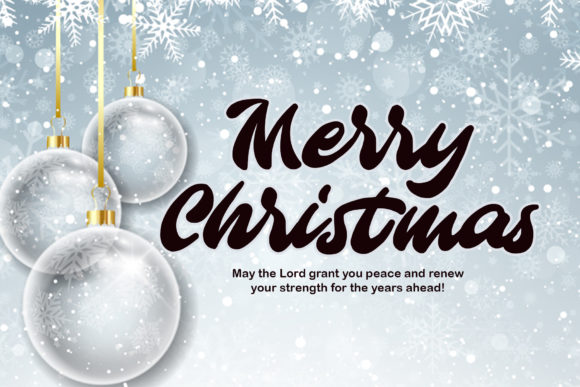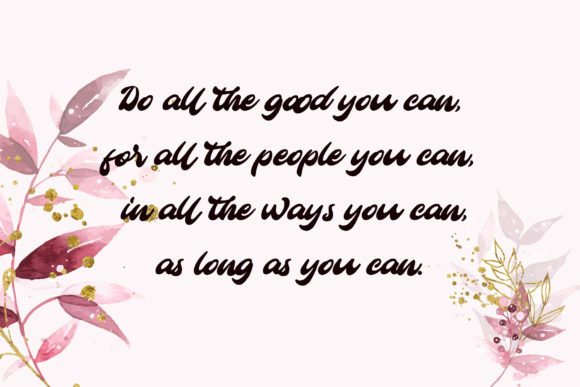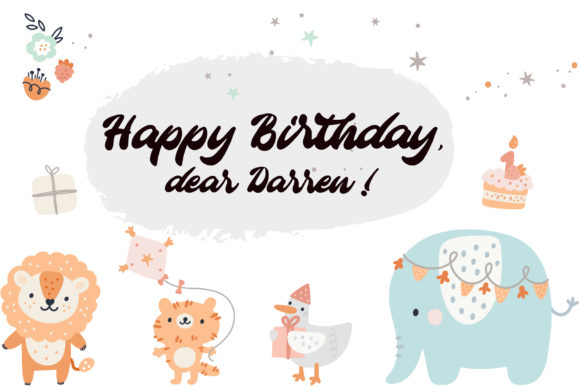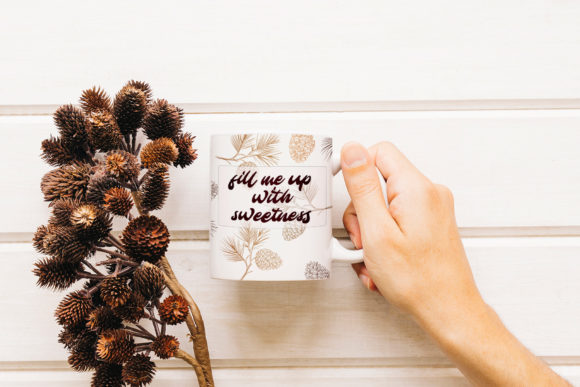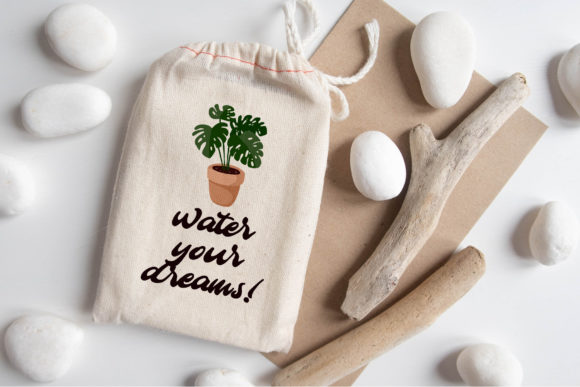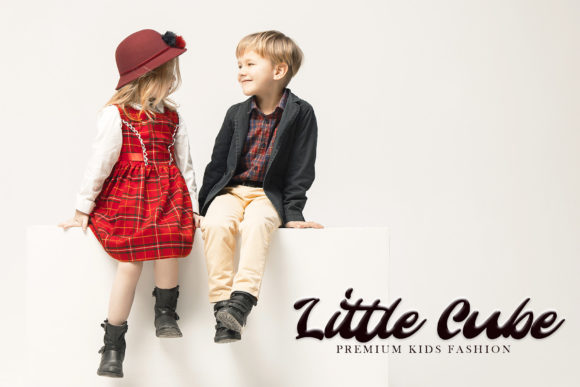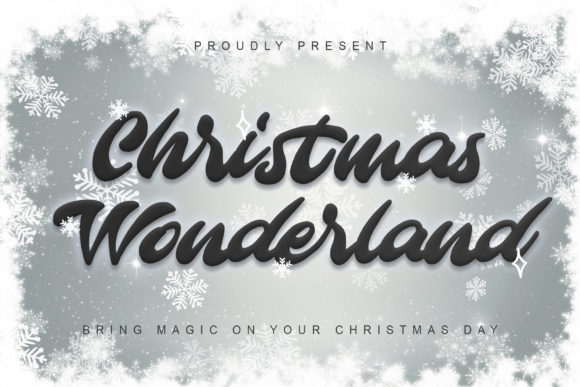
Introducing Christmas Wonderland Font: A Magical Script Font for the Holiday Season
Are you looking for a font that captures the essence of Christmas and adds a touch of elegance to your designs? Look no further than Christmas Wonderland Font, a beautiful brushed script font that’s perfect for creating stunning holiday-themed projects. In this article, we’ll dive into the features and benefits of Christmas Wonderland Font, and explore how you can use it to elevate your designs.
What is Christmas Wonderland Font?
Christmas Wonderland Font is a brushed and elegant script font that’s designed to bring a touch of magic to your designs. With its flowing lines and delicate strokes, this font is perfect for creating sophisticated and eye-catching projects. Whether you’re a designer, crafter, or DIY enthusiast, Christmas Wonderland Font is a versatile and easy-to-use font that’s sure to become a favorite in your collection.
Key Features of Christmas Wonderland Font
- Brushed and Elegant Design: Christmas Wonderland Font features a beautiful brushed design that gives it a unique and elegant look.
- PUA Encoded: This font is PUA encoded, which means you can access all of the glyphs and swashes with ease. This makes it easy to use and customize, even for beginners.
- Wide Range of Uses: Christmas Wonderland Font is suitable for a wide range of projects, including branding, product packaging, invitations, quotes, t-shirts, labels, posters, logos, and more.
Benefits of Using Christmas Wonderland Font
So why choose Christmas Wonderland Font for your holiday projects? Here are just a few benefits of using this amazing font:
- Adds a Touch of Elegance: Christmas Wonderland Font adds a touch of elegance and sophistication to any project, making it perfect for high-end designs.
- Versatile: This font is versatile and can be used for a wide range of projects, from invitations and packaging to logos and posters.
- Easy to Customize: With its PUA encoding, Christmas Wonderland Font is easy to customize and edit, even for beginners.
- Unique and Eye-Catching: This font is unique and eye-catching, making it perfect for designs that need to stand out from the crowd.
Ideas for Using Christmas Wonderland Font
So what can you create with Christmas Wonderland Font? Here are just a few ideas to get you started:
- Holiday Invitations: Create beautiful and elegant holiday invitations that set the tone for your festive celebrations.
- Product Packaging: Add a touch of elegance to your product packaging with Christmas Wonderland Font, perfect for holiday-themed products.
- T-Shirts and Apparel: Create stunning holiday-themed t-shirts and apparel with Christmas Wonderland Font.
- Posters and Flyers: Design eye-catching posters and flyers that showcase your holiday events or promotions.
- Logos and Branding: Use Christmas Wonderland Font to create a unique and elegant logo or branding identity for your business.